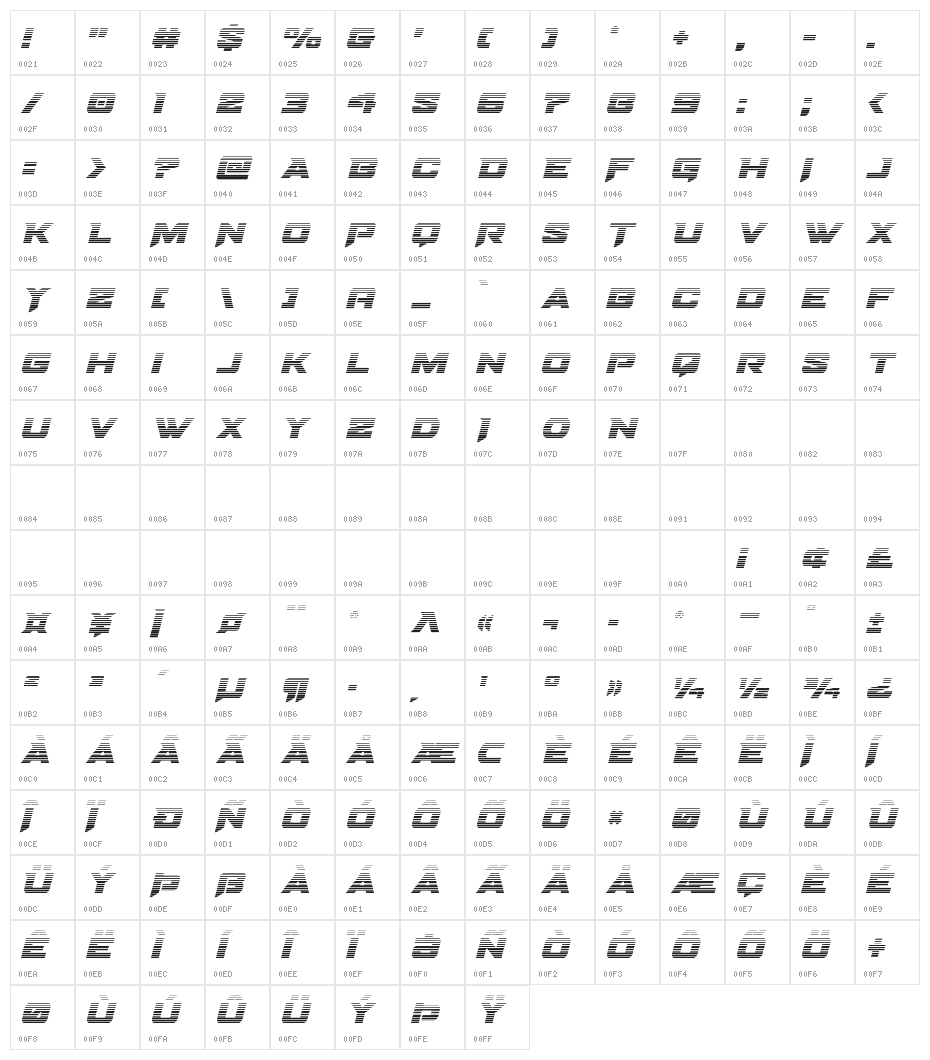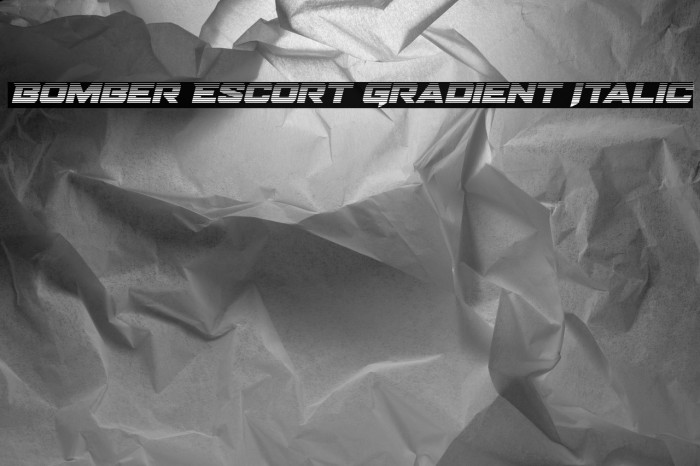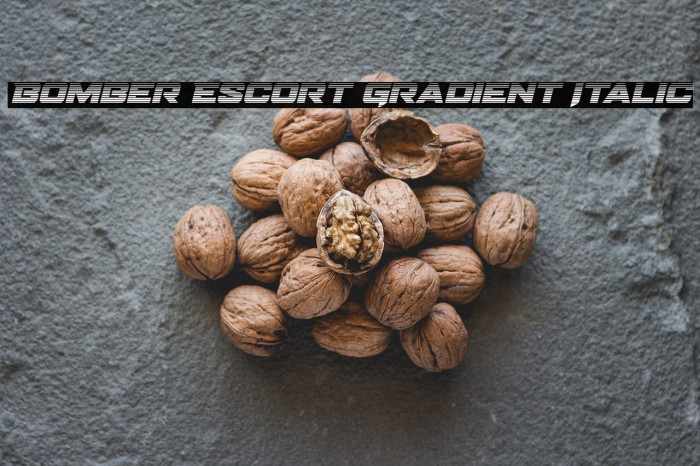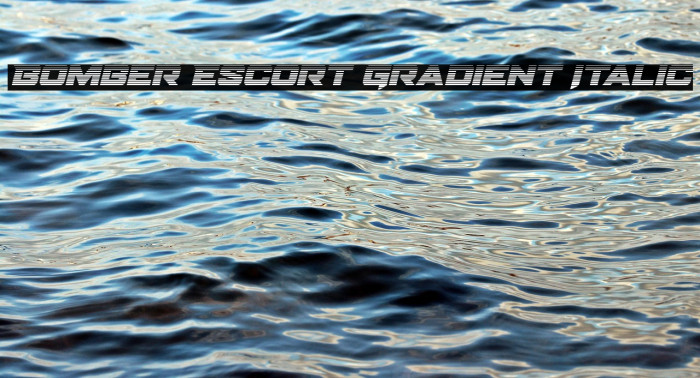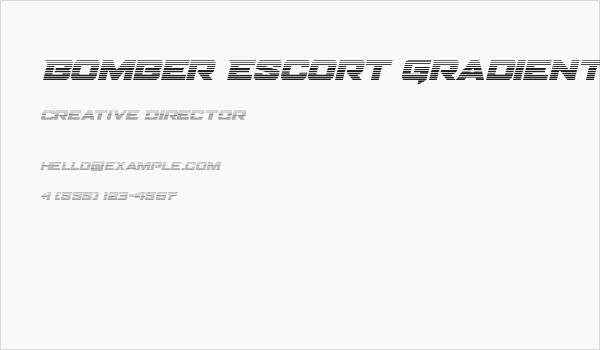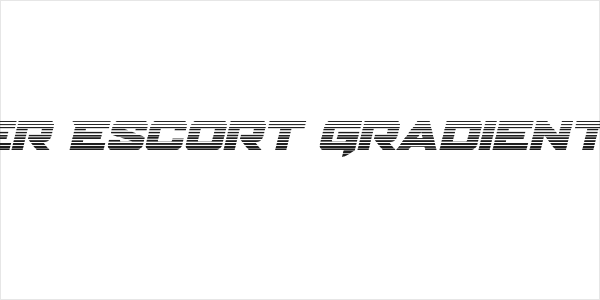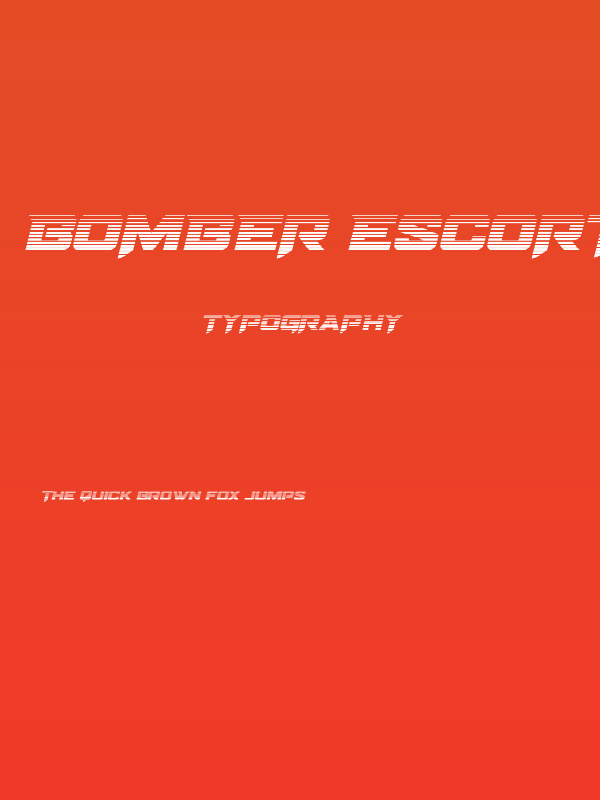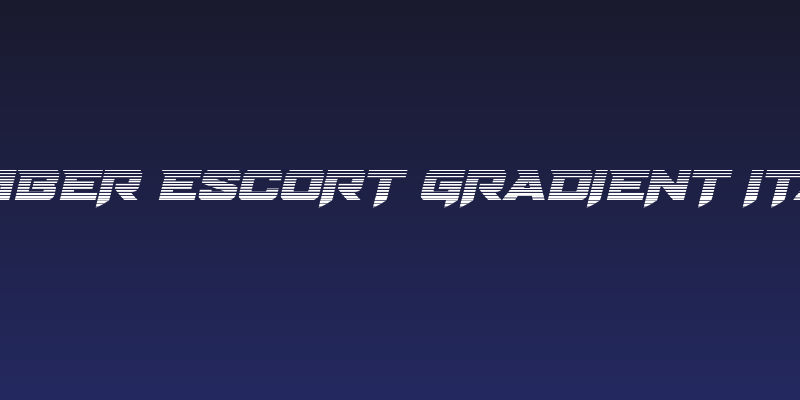
Bomber Escort Gradient Italic Font
Bomber Escort Gradient Italic Description
This font features a bold, italicized style with a distinct gradient effect created by horizontal lines cutting through each character. The design gives a sense of motion and speed, reminiscent of futuristic or high-tech themes. The uppercase and lowercase letters maintain a consistent slant, enhancing the italicized appearance. The numerals and special characters follow the same stylistic approach, ensuring uniformity across all glyphs. The overall look is dynamic and eye-catching, making it suitable for projects that require a modern and energetic feel.
| Proposed Projects | This font is perfect for use in video game titles, sports branding, automotive advertisements, and any project that seeks to convey speed and modernity. |